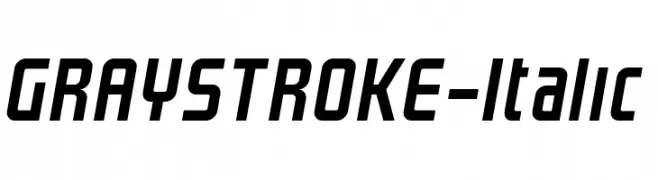
A bold, modern sans-serif font with clean lines and excellent readability.
A clean, modern sans-serif font with semi-bold weight and medium contrast.
A bold, modern sans-serif font with clean lines and rounded edges.
A bold, modern sans-serif font with clean, geometric lines.
A modern, italic sans-serif font with clean lines and excellent readability.
A modern, italicized font with sleek, angular characters and a dynamic appearance.